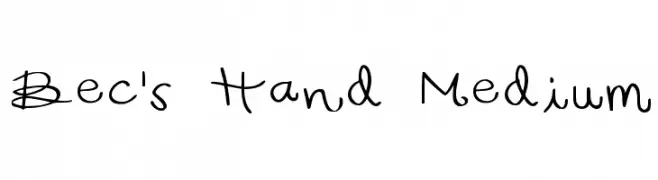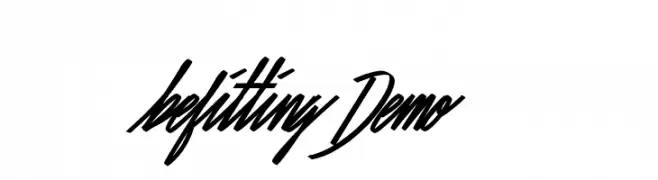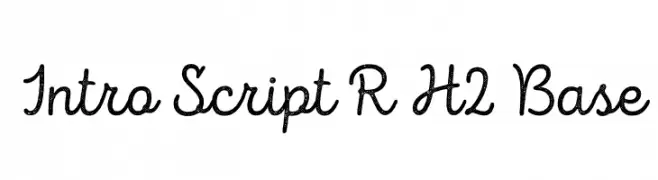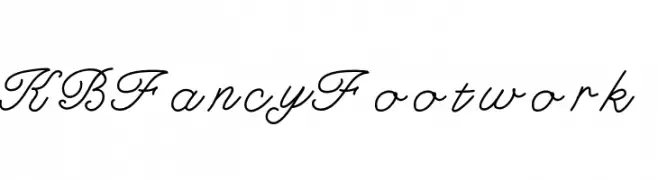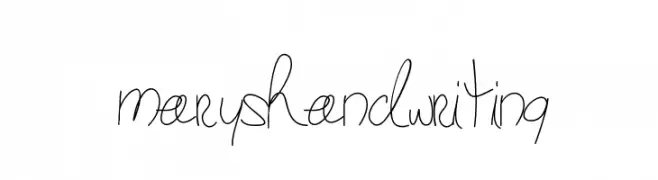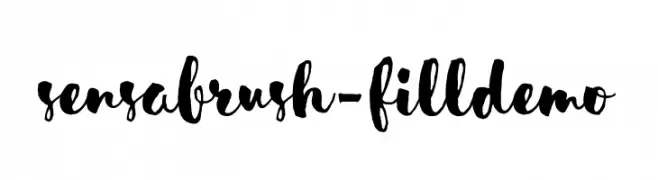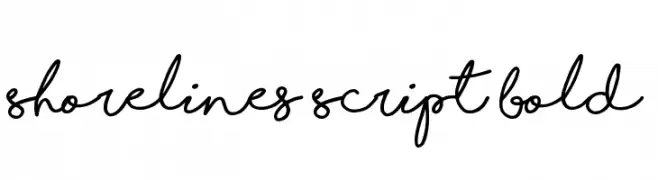
A playful and elegant handwritten script font with fluid, connected characters.
A casual, handwritten font with fluid, slightly irregular strokes.
A casual, handwritten-style font with fluid, connected letters.
A charming, elegant script font with fluid, cursive strokes and seamless flow.
A dynamic and expressive script font with a fluid, handwritten style.
A playful, hand-drawn script font with fluid, connected characters.
A bold, brush script font with a dynamic and fluid style.